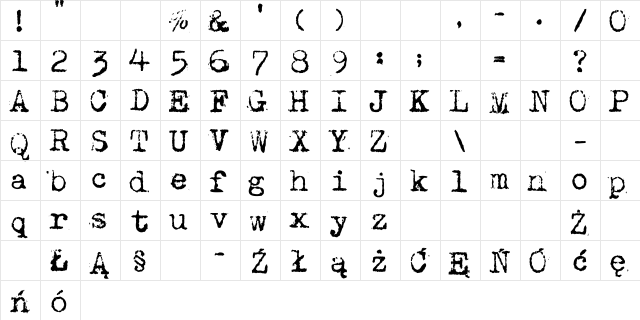
MaszynaAEG Regular
| Foundry | flashFONT |
| Designer | bartek nowak |
Design Context for MaszynaAEG Typeface
MaszynaAEG is a composed and adaptable typeface that performs quietly and consistently across a wide range of design contexts.